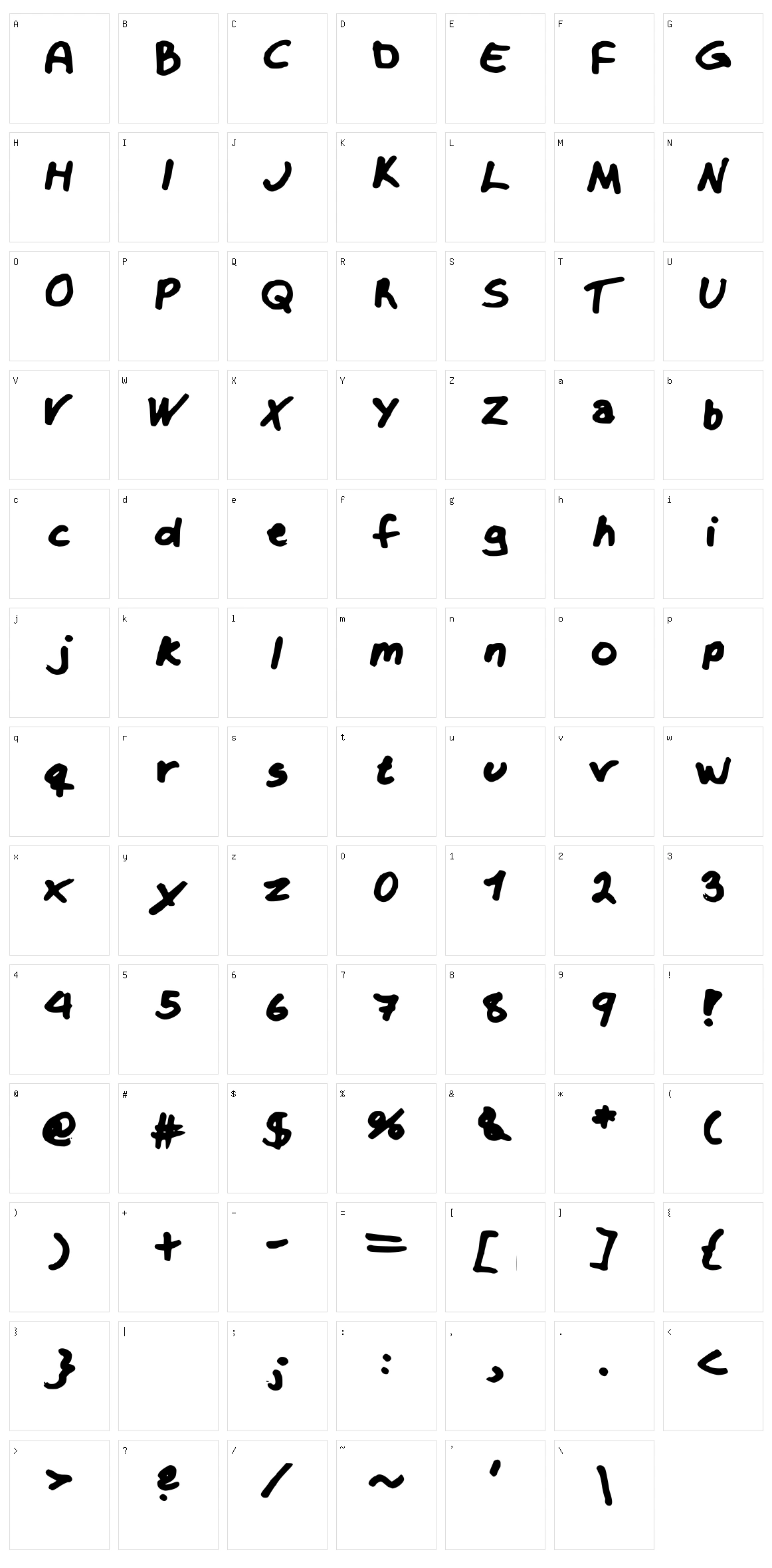
The free font Krizzy is carefully designed by Kristina Eriksen, showcasing a thoughtful balance of creativity and usability and falls under the Script font style. When you download the ZIP file, it contains only 14.92 KB of font files, making it lightweight and quick to download. Please review the license details below to understand permitted usage and distribution rights. If license information is not available, we recommend using this font for personal projects only or contacting the author directly for commercial usage permissions.